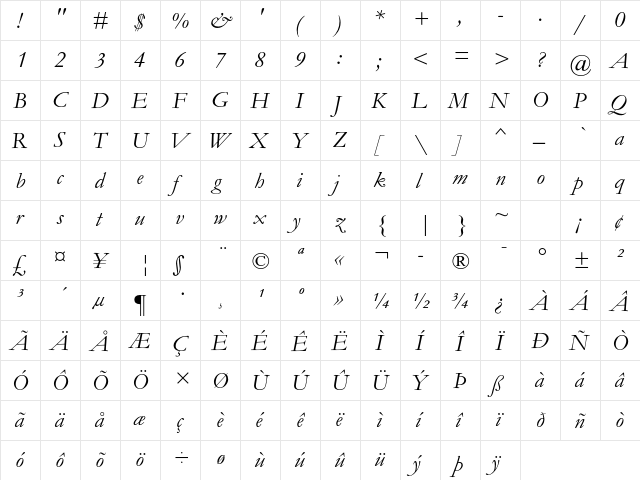
Garamond MT Std Italic Alt
Design Context for Garamond MT Std Typeface
Garamond MT Std is a composed and adaptable typeface that performs quietly and consistently across a wide range of design contexts. The dynamic lean of this cut emphasises speed and emphasis in any layout.
Pro Tip: Try Garamond MT Std for annotation and caption copy alongside an upright companion — the contrast in angle creates a dynamic but ordered typographic system.